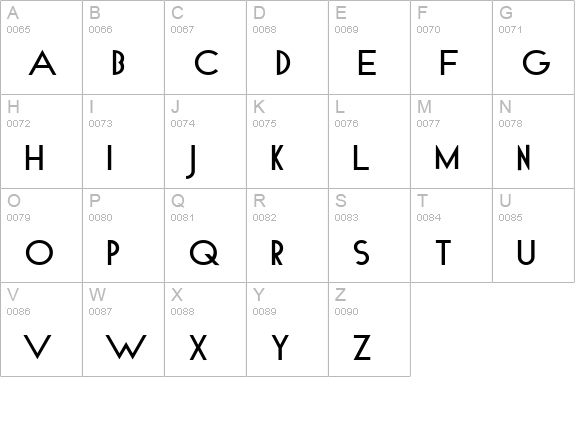
Compass Bold is a strong, high-contrast variant in the Compass typeface family \xE2\x80\x94 well suited to headlines, attention-grabbing titles, and strong calls-to-action.
Compass Bold font is a versatile and modern typeface that exudes confidence and strength. Its bold and striking design makes it perfect for headlines, titles, and any other text that needs to make a statement. The sharp edges and clean lines of Compass Bold give it a sleek and professional look that is sure to grab attention. What's even better is that Compass Bold font is available for free download at FontsMarket.com. This means that you can easily add this eye-catching font to your collection without any cost. Don't miss out on the opportunity to enhance your designs with the bold and impactful Compass Bold font today!